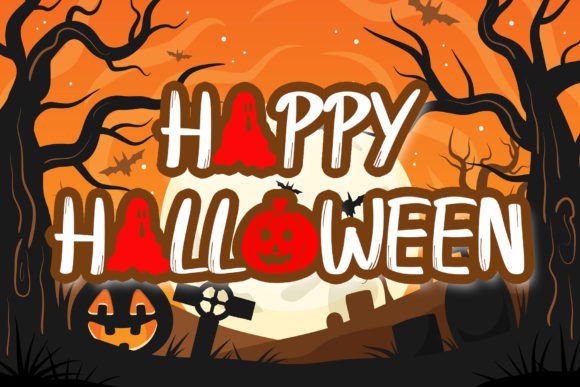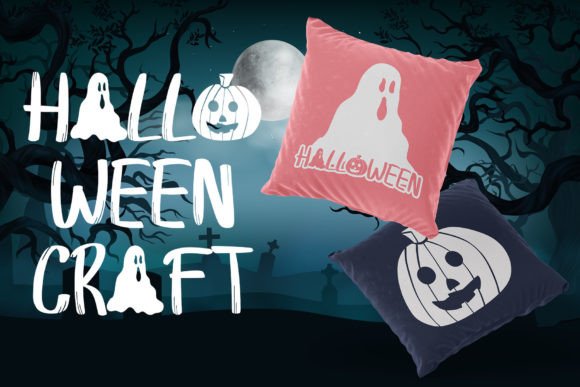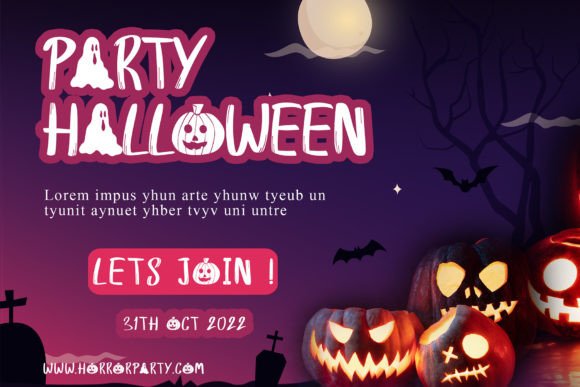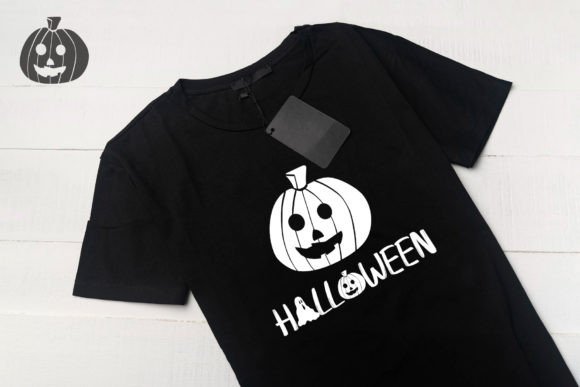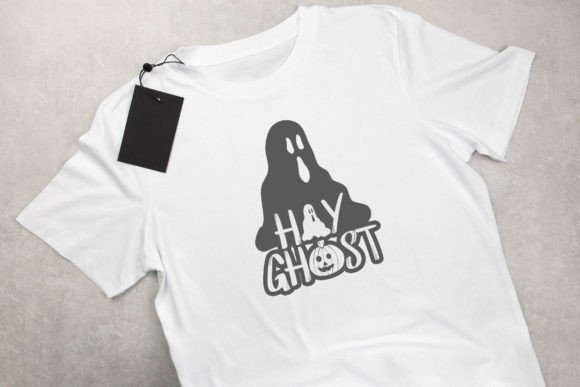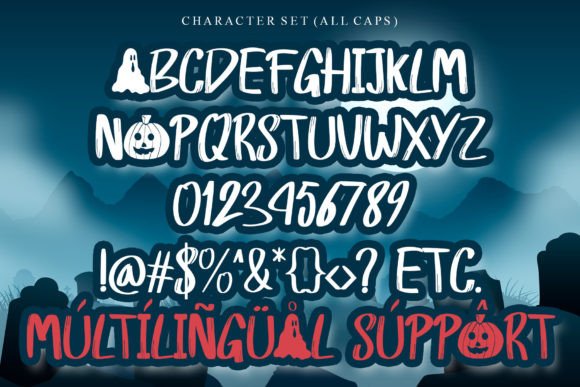
Unleash the Spook: Discover the Hay Ghost Font for Your Halloween Projects
As the spookiest time of the year approaches, designers and crafters are on the lookout for the perfect typography to add a touch of eeriness to their Halloween-related projects. Look no further than the Hay Ghost Font, a thick-lettered and spooky display font that’s sure to cast a spell on your audience. In this article, we’ll dive into the world of Hay Ghost, exploring its features, uses, and benefits for your creative endeavors.
The Haunting Beauty of Hay Ghost Font
Hay Ghost is a display font that exudes a sense of spookiness, making it an ideal choice for Halloween-themed projects. Its thick, bold letters seem to leap off the page, evoking the eerie and mysterious atmosphere of the holiday. The font’s rugged texture and irregularities add to its haunting beauty, giving it a handmade feel that’s perfect for crafty designs.
Perfect for Halloween-Related Projects
Whether you’re working on a Halloween-themed invitation, a spooky poster, or a creepy craft project, Hay Ghost is the perfect font to add a touch of macabre whimsy. Its bold and eye-catching design ensures that your project will stand out from the crowd, grabbing the attention of your audience and setting the tone for a thrilling experience.
Crafty Ideas to Get You Started
Hay Ghost is more than just a font – it’s a creative catalyst. Here are some crafty ideas to get you started:
- Halloween Invitations: Create spooky invitations for your Halloween party or event, complete with Hay Ghost font headers and eerie graphics.
- Spooky Posters: Design eye-catching posters for your favorite horror movies or haunted attractions, featuring Hay Ghost font titles and creepy imagery.
- Crafting Templates: Use Hay Ghost to create templates for your Halloween crafts, such as pumpkin carving stencils, ghostly garlands, or spooky lanterns.
- T-Shirt Designs: Create bold and spooky t-shirt designs featuring Hay Ghost font phrases and creepy graphics, perfect for Halloween enthusiasts.
Benefits of Using Hay Ghost Font
So why choose Hay Ghost for your Halloween projects? Here are just a few benefits:
- Ease of Use: Hay Ghost is a straightforward font to use, even for those without extensive design experience.
- High Versatility: The font’s bold and rugged design makes it suitable for a wide range of projects, from digital designs to print materials.
- Unique Style: Hay Ghost offers a distinctive and eye-catching style that’s sure to set your project apart from the crowd.
Tips for Getting the Most Out of Hay Ghost
To maximize the impact of Hay Ghost, consider the following tips:
- Experiment with Colors: Try pairing Hay Ghost with bold and bright colors to create a striking contrast.
- Add Texture: Combine Hay Ghost with textures and patterns to add depth and visual interest to your design.
- Mix and Match: Don’t be afraid to combine Hay Ghost with other fonts or graphics to create a unique and captivating design.
| Font Name | Hay Ghost Font |
| Author | Letterafa Studio |
Hay Ghost is a spooky and versatile font that’s perfect for adding a touch of eeriness to your Halloween-related projects. With its bold and rugged design, it’s sure to cast a spell on your audience and leave a lasting impression. Whether you’re a designer, crafter, or simply a Halloween enthusiast, Hay Ghost is a must-have font for your creative toolkit. So why wait? Unleash the spook and get creative with Hay Ghost today!